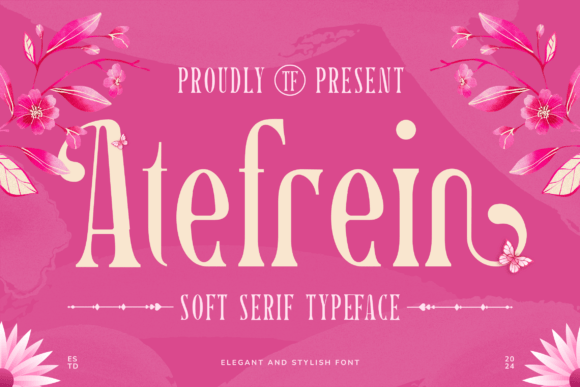
First Impressions: A Refined and Contemporary Look
Atefrein is a masterclass in elegant letterforms and smooth curves. The balanced contrast between thick and thin strokes creates a refined and contemporary look, making it perfect for stylish and expressive typography. This typeface is particularly suitable for fashion branding, beauty products, editorial layouts, logos, and packaging design.
What I Love About Atefrein
- ✨ Elegant letterforms with smooth curves
- ✅ Balanced contrast between thick and thin strokes
- ✨ Suitable for a wide range of design applications, including fashion branding and editorial layouts
- ✅ Includes uppercase and lowercase characters, numerals, punctuation, ligatures, and multilingual support
While Atefrein is an exceptional typeface, there are a few minor quirks to be aware of:
- ⚠️ Some users may find the font’s softness too subtle for certain design applications
- 🤔 Limited availability of stylistic alternates, which may not offer enough variation for some designers
The Designer Inspiration Behind Atefrein
Atefrein was designed with the goal of creating a typeface that embodies the perfect balance between elegance and modernity. The designer’s inspiration came from the world of fashion and beauty, where typography plays a crucial role in conveying luxury and sophistication. With Atefrein, designers can create stunning typographic compositions that elevate their designs to the next level.
| What is Atefrein? | Atefrein is a soft modern serif typeface designed with elegant letterforms and smooth curves. |
| What design applications is Atefrein suitable for? | Atefrein is suitable for fashion branding, beauty products, editorial layouts, logos, and packaging design. |
| Does Atefrein include OpenType features? | Yes, Atefrein includes OpenType features such as ligatures, stylistic alternates, and multilingual support. |